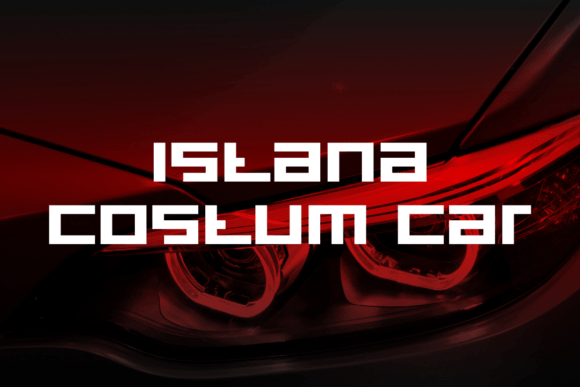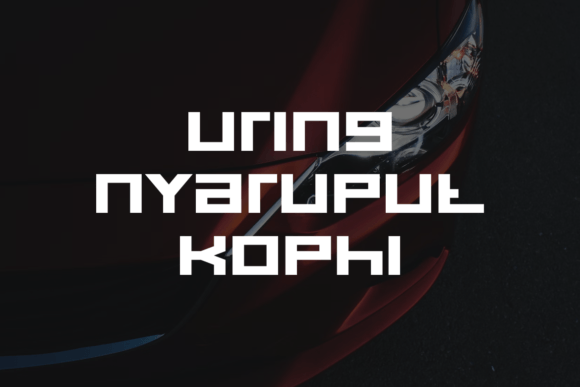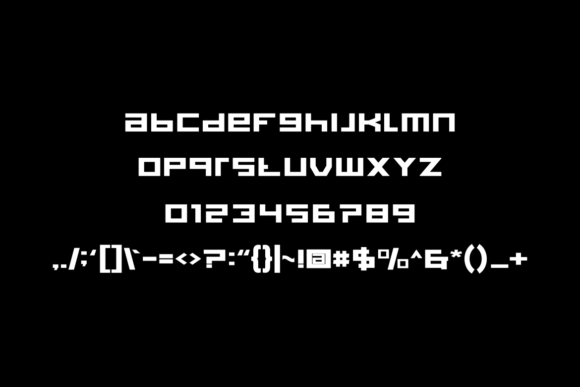
Introduction to Phambashi Font
Phambashi is a sans serif font inspired by futuristic technology and sports.
It’s great for product logos, posters, headlines, cards, websites, magazines, packaging, stationery, and much more You can easily create your own logo designs using this font.